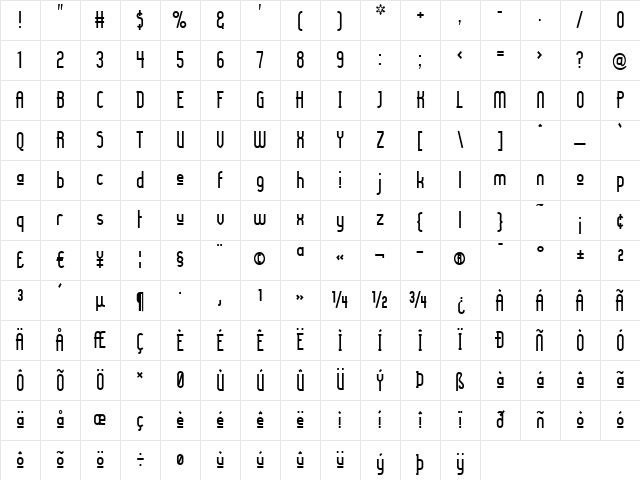
Lady Ice Revisited Upper Regular
Designer: CybaPee, Apostrophe & Graham Meade
Design Context for Lady Ice Revisited Upper
Lady Ice Revisited Upper is a composed and adaptable typeface that performs quietly and consistently across a wide range of design contexts.